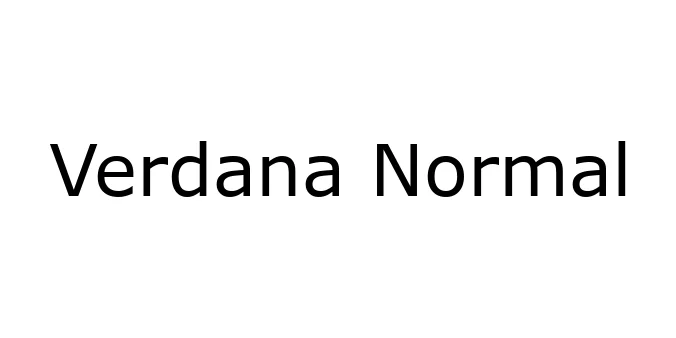
Verdana Normal
Designed by Matthew Carter
| Similar Fonts | Tahoma, Frutiger, Open Sans, Geneva |
Verdana Normal was commissioned by Microsoft and designed by the legendary type designer Matthew Carter, with hand-hinting performed by Tom Rickner. Released in 1996, it was specifically engineered to address the challenges of on-screen display. Unlike many fonts of its time that were adapted from print, Verdana was built from the ground up to be legible at small sizes on low-resolution computer monitors.
The typeface is a Humanist sans-serif characterized by a large x-height, wide proportions, and generous letter spacing. These features prevent the characters from bleeding into one another, making it one of the most readable fonts for digital interfaces. Even decades after its release, it remains a gold standard for web typography and user experience design due to its functional clarity and universal compatibility.
Verdana Normal Best Uses
Exceptional for body text on websites where readability is the primary concern.
Ideal for buttons, menus, and labels in software and mobile applications.
One of the safest choices for cross-platform email rendering and accessibility.